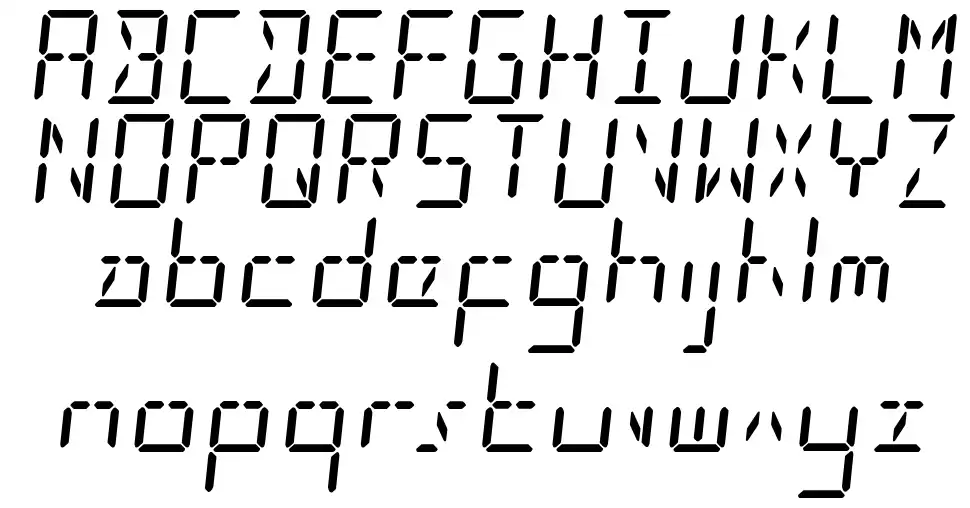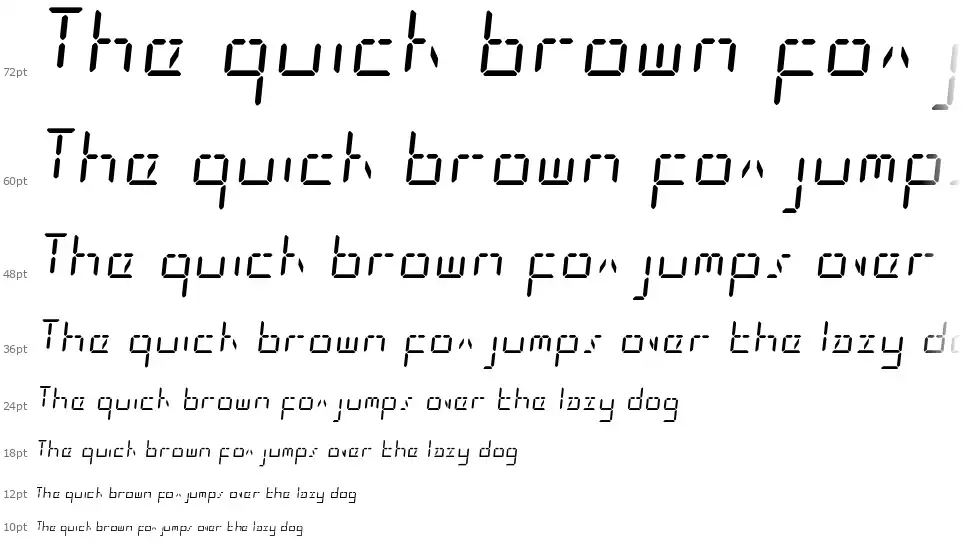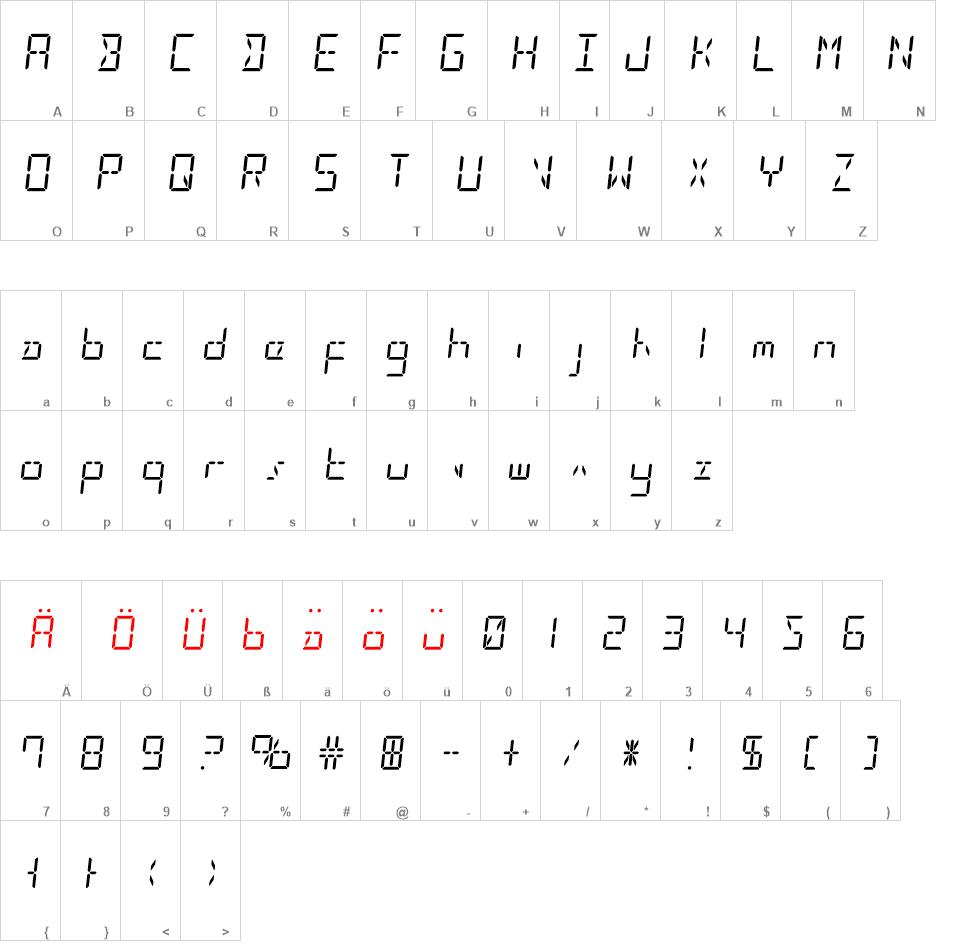
Sledge Font Free . File script name sledge__.ttf download free for personal use. File size 0.39mb | sans serif,basic font,sledge,sledge typeface,sledge. Sledge regular font by apostrophic labs. Sledge font download is available free from fontget. Free download of sledge font. Download sledge regular font | 1 style free font. Download sledge regular font | 2 styles free font. See how to download sledge for free! Sledge is a display type font that can be used on any device such as pc, mac, linux, ios. Download sledge font · free for commercial use · i see you in a shed, fumbling with glass, sour cheese in the air. On the shelf i see you hang. A great choice for highlighting your design elements.
Sledge Font Free Download sledge regular font | 1 style free font. Sledge regular font by apostrophic labs. Sledge is a display type font that can be used on any device such as pc, mac, linux, ios. Sledge font download is available free from fontget. Download sledge font · free for commercial use · i see you in a shed, fumbling with glass, sour cheese in the air. File size 0.39mb | sans serif,basic font,sledge,sledge typeface,sledge. On the shelf i see you hang. Download sledge regular font | 2 styles free font. Download sledge regular font | 1 style free font. Free download of sledge font. A great choice for highlighting your design elements. File script name sledge__.ttf download free for personal use. See how to download sledge for free!